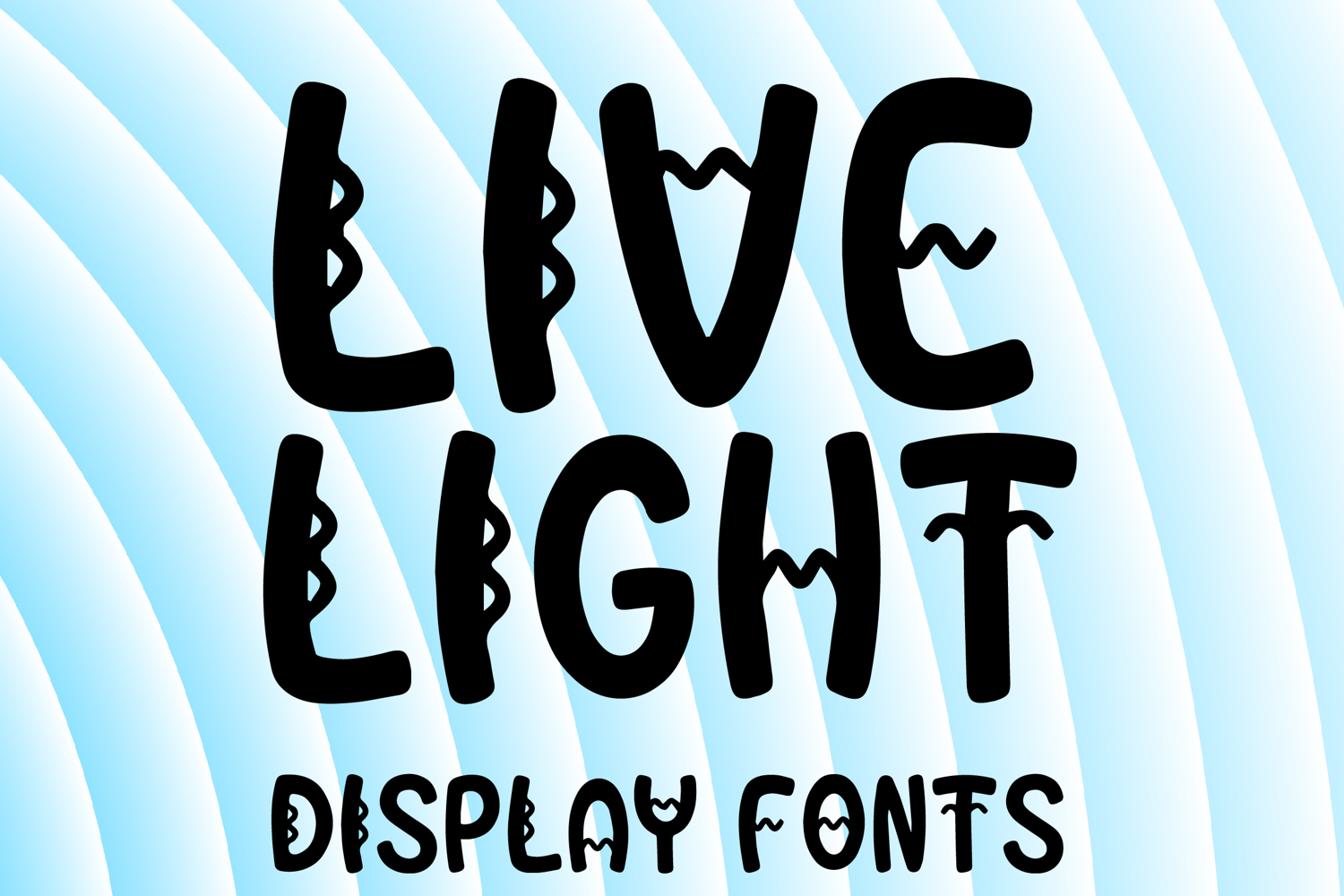
LIVE LIGHT
LIVE LIGHT is a whimsical decorative display font with a playful handcrafted style and cheerful artistic charm. Its uppercase letterforms feature bold rounded strokes, quirky inner cut details, and organic irregular shapes that create a fun, friendly, and eye-catching look. Designed with uppercase letters A–Z and numbers 0–9, LIVE LIGHT is perfect for branding, posters, packaging, invitations, logos, social media graphics, and creative projects that need a joyful and memorable statement.